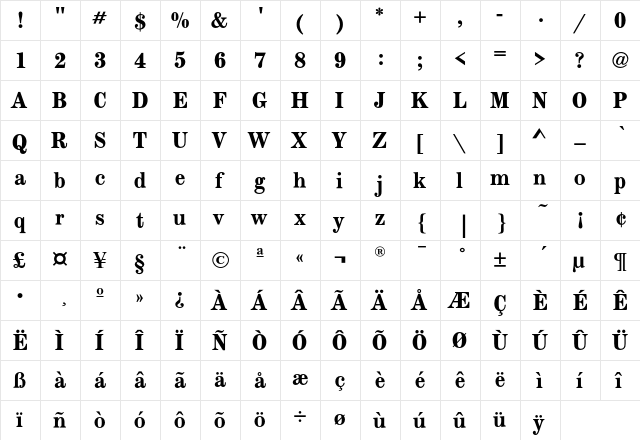
ModernExtendedEF Bold
Design Context for ModernExtendedEF Typeface
ModernExtendedEF is a composed and adaptable typeface that performs quietly and consistently across a wide range of design contexts. Its bold stroke weight gives it real presence on the page.